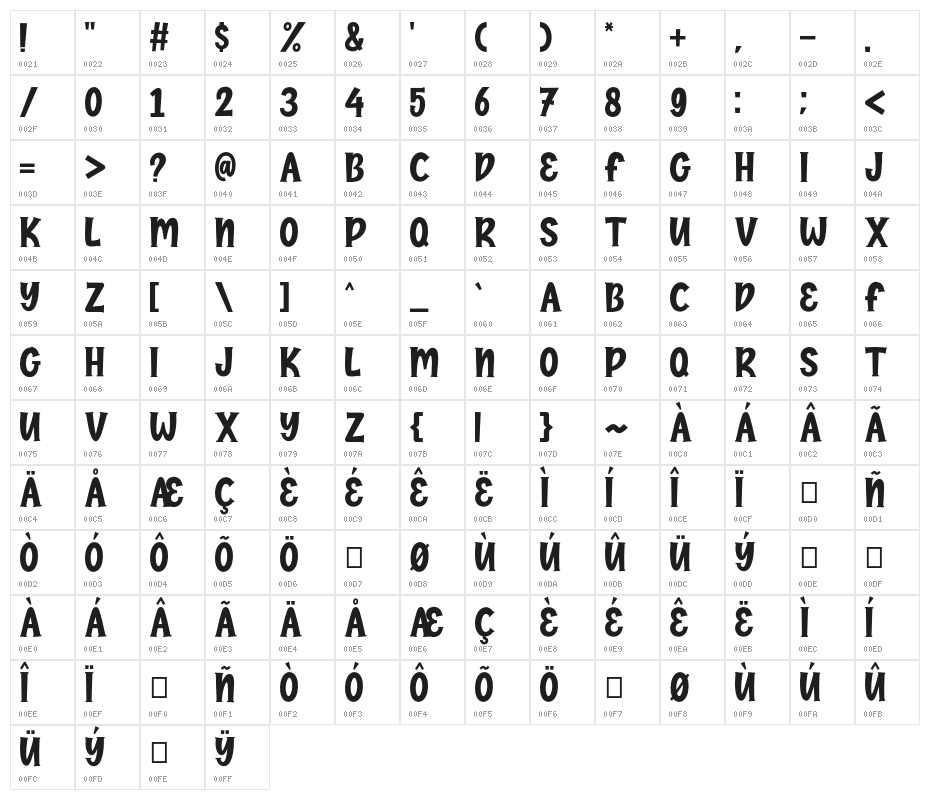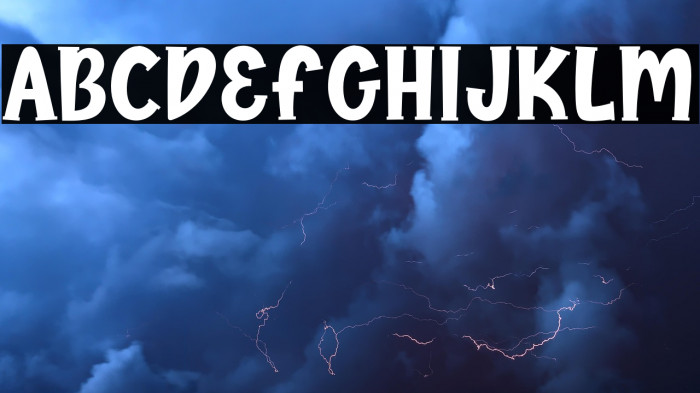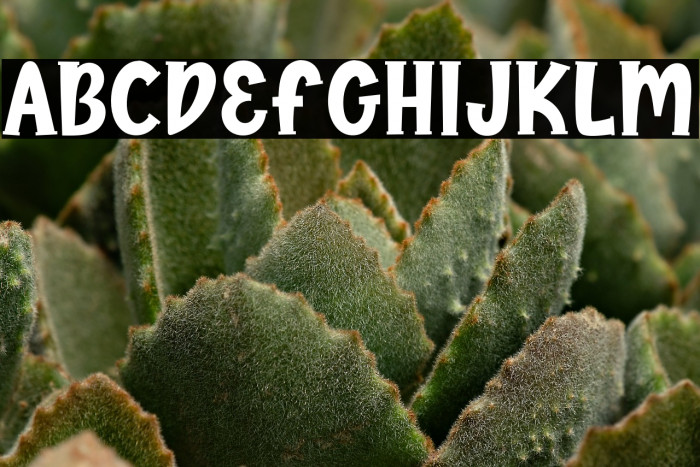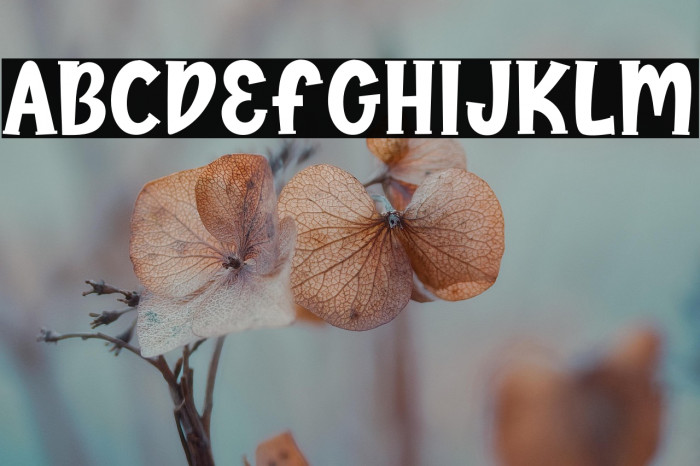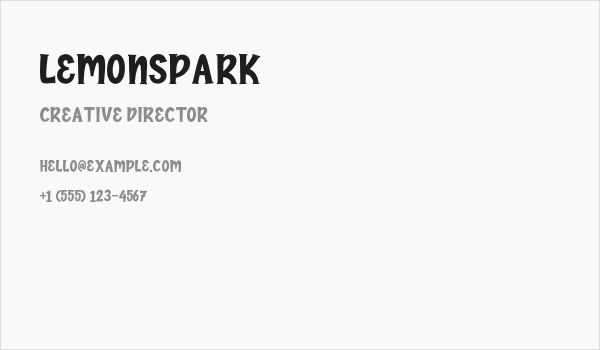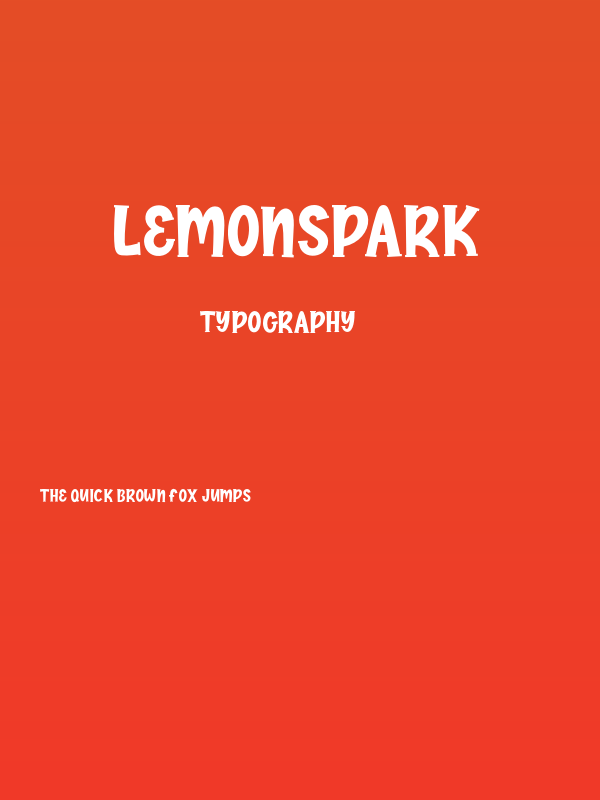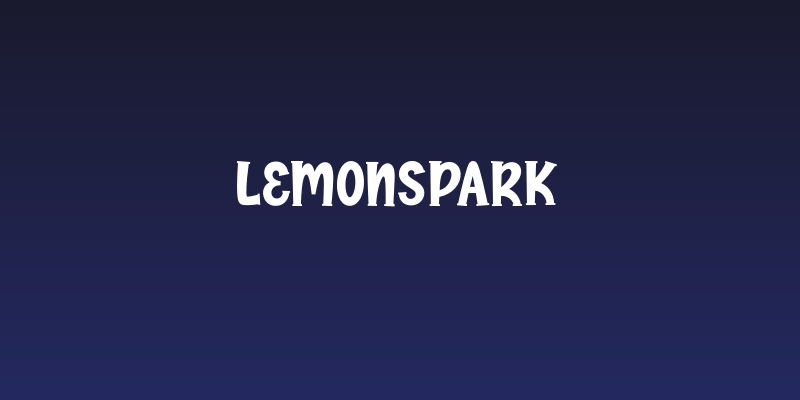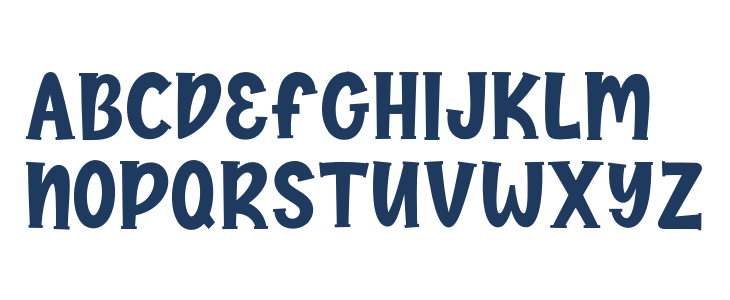
Lemonspark Font
Lemonspark Description
This font features a bold and playful style with a distinctively whimsical flair. The characters are thick and rounded, giving them a friendly and approachable appearance. The uppercase and lowercase letters maintain a consistent weight, contributing to a cohesive look. The numbers and special characters are equally bold, ensuring readability and impact. The overall design is reminiscent of hand-drawn lettering, making it suitable for projects that require a personal touch. Its unique character shapes and bold presence make it ideal for eye-catching designs.
Overall StylePlayful, Whimsical, Hand-drawn
Proposed ProjectsIdeal for children's books, playful branding, posters, and creative invitations.